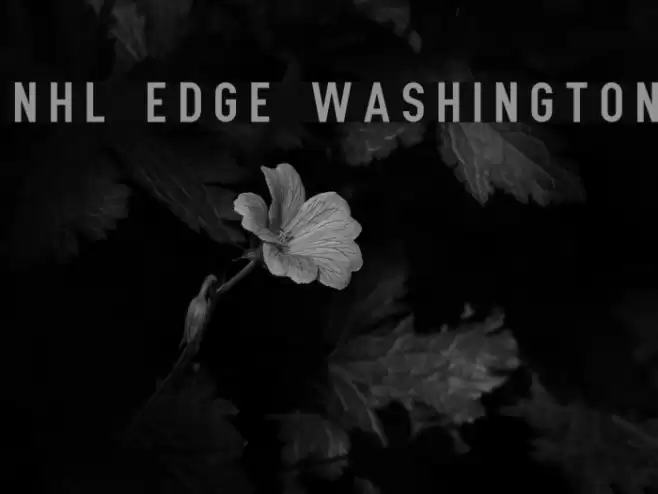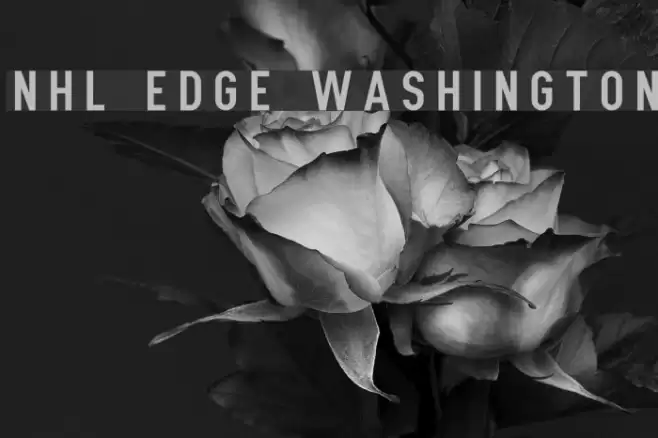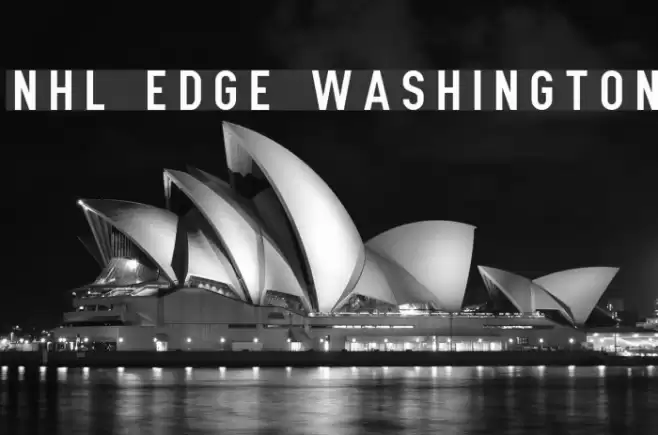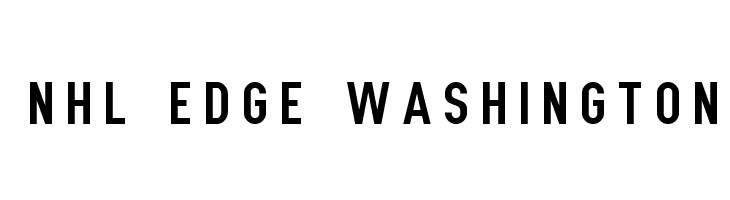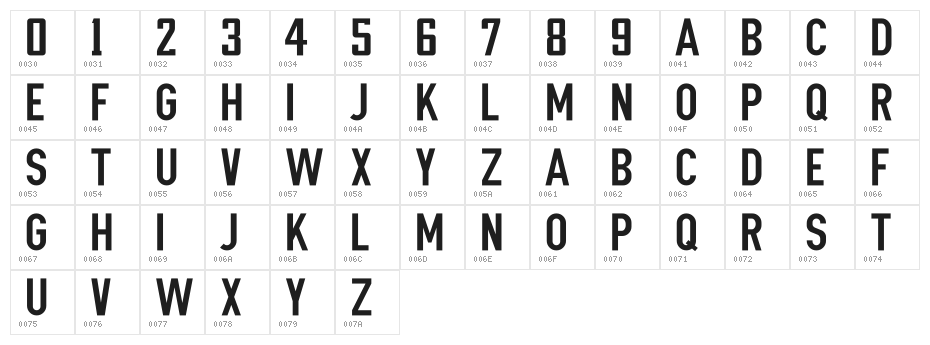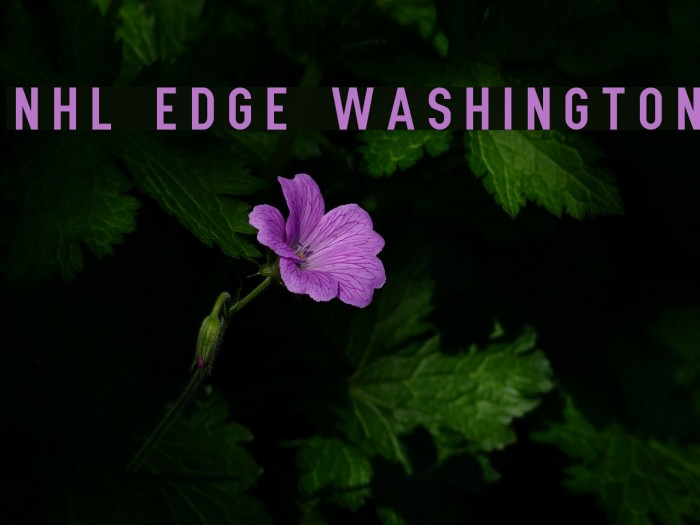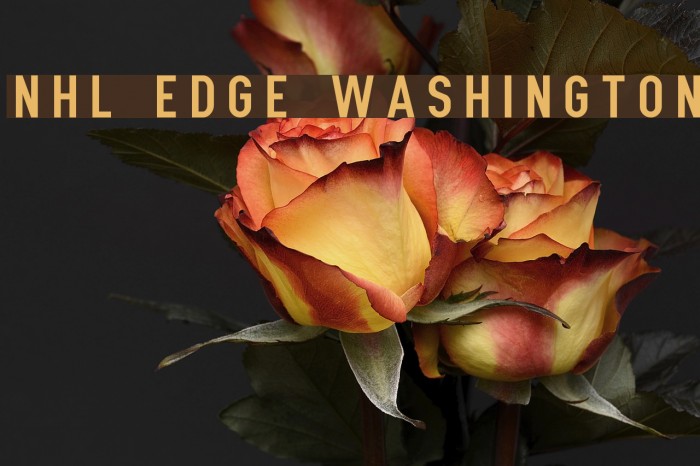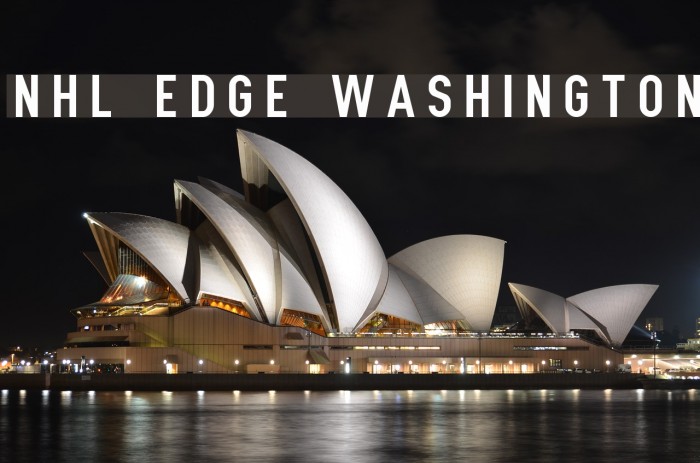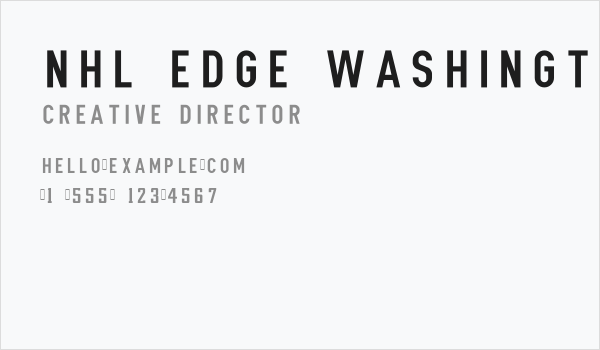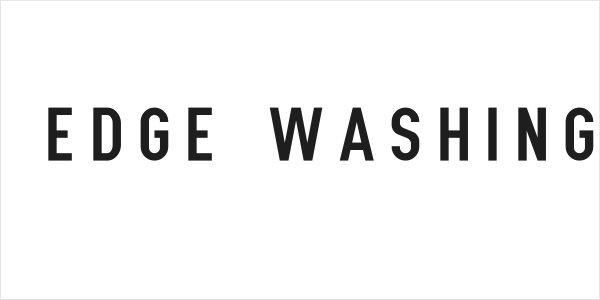
NHL Edge Washington Font
NHL Edge Washington Description
This font features a bold, geometric sans-serif style with clean lines and a modern aesthetic. The uppercase letters are uniform in height, with a slight variation in width that adds a dynamic feel. The numerals are distinct and easy to read, maintaining the geometric theme. The special characters are consistent with the overall design, providing a cohesive look. The font's strong presence makes it suitable for impactful headlines and branding projects.
A bold, geometric sans-serif font with a modern and clean design from Uncategorized fonts.
- Proposed Projects: Ideal for sports branding, team logos, headlines, and promotional materials.